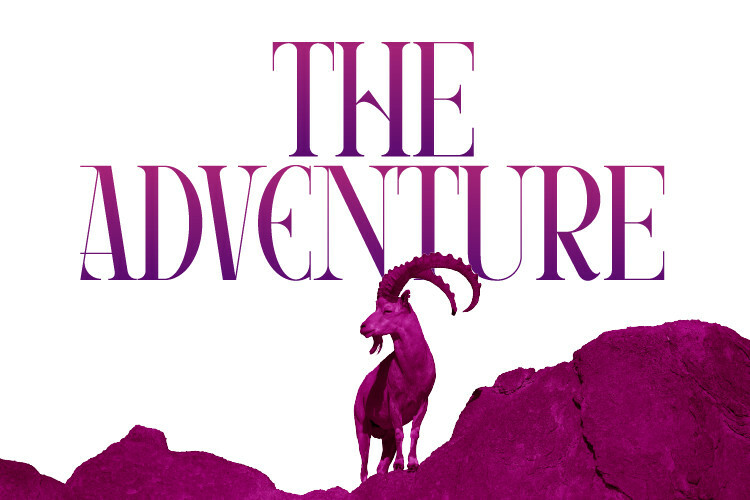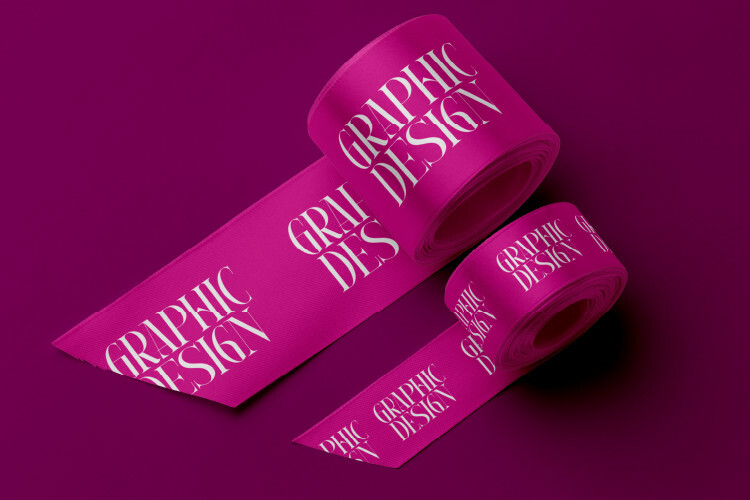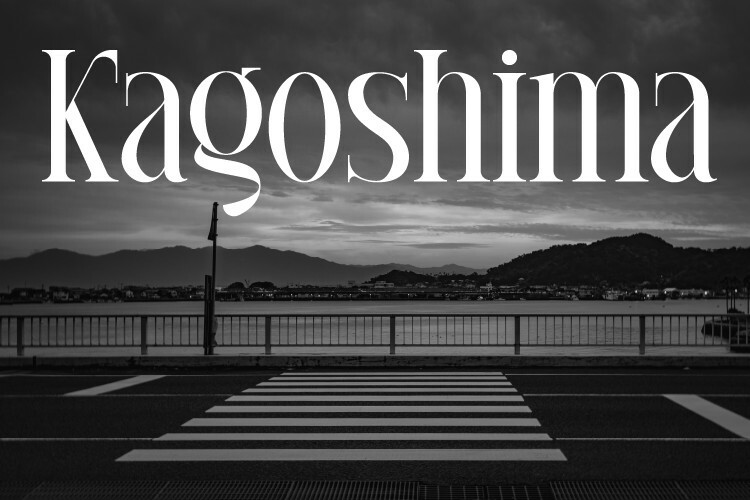
Meaglez Display Font
Meaglez Display Font – Its elegant and cool look makes it the perfect choice for logos, branding, invitations, stationery, wedding designs, social media posts, and so much more. Meaglez font is PUA encoded which means you can access all of the glyphs.